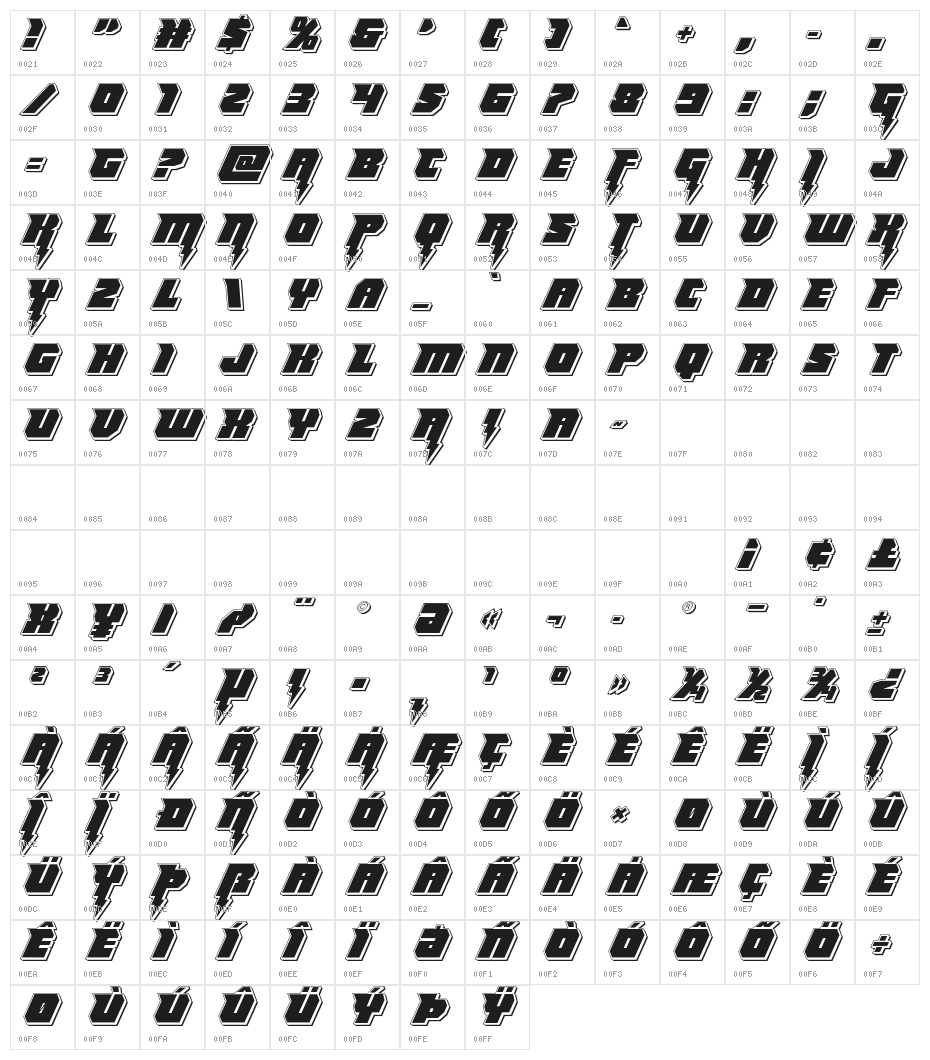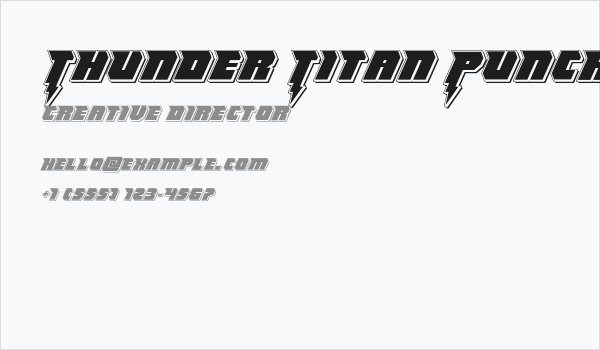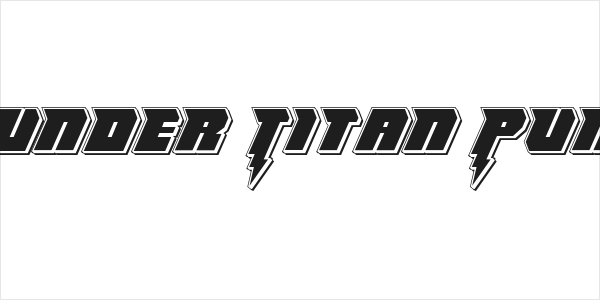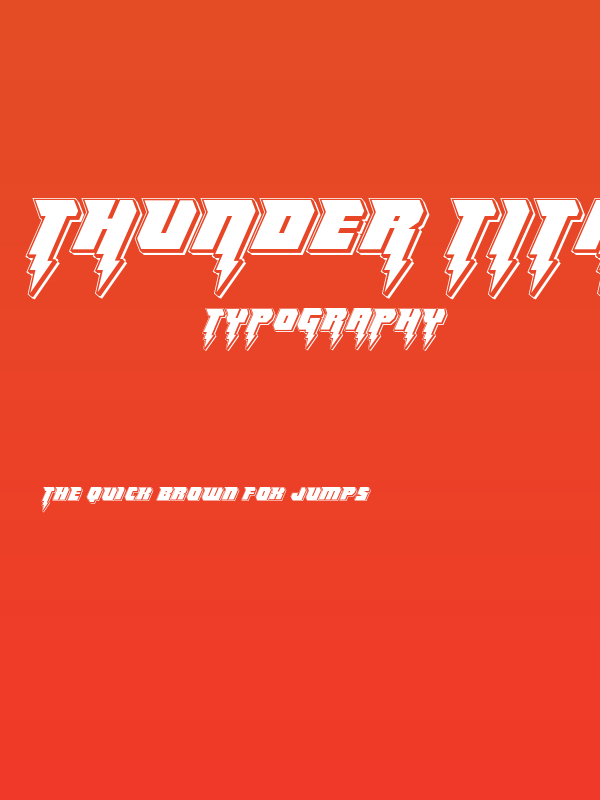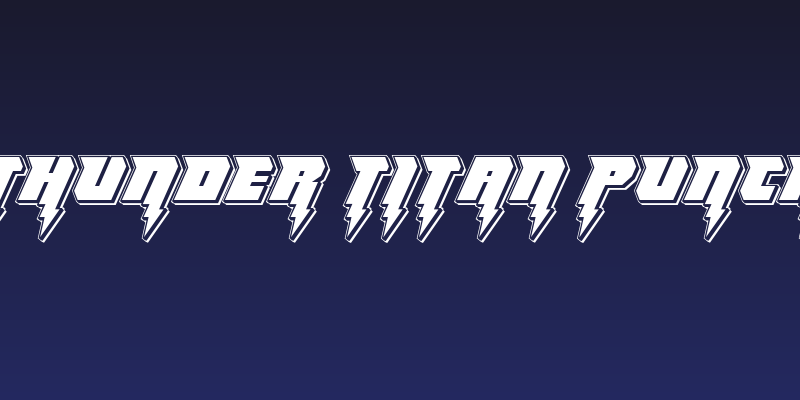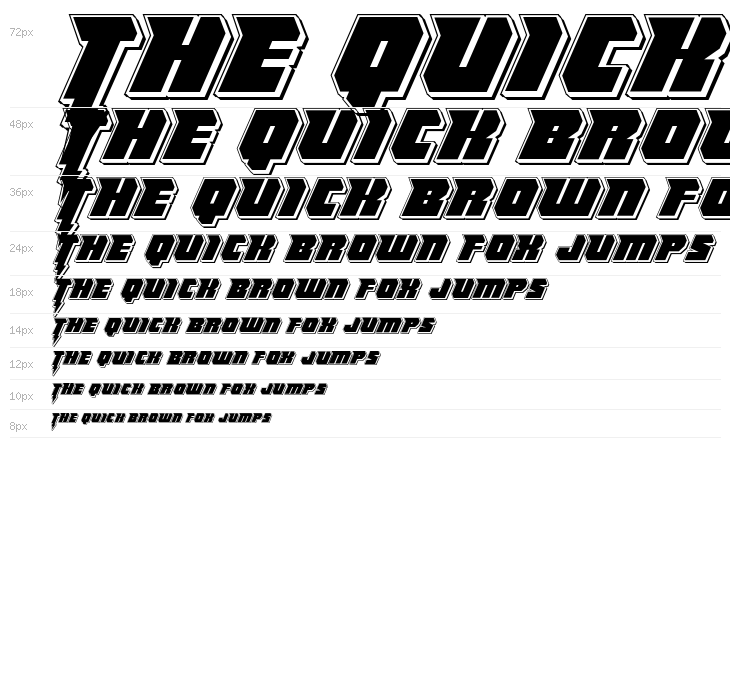
Thunder Titan Punch Font
Thunder Titan Punch Description
This font features a bold and dynamic design with a strong, angular structure. The letters are characterized by sharp edges and a three-dimensional effect, giving them a powerful and energetic appearance. The uppercase and lowercase letters maintain a consistent style, with the uppercase letters having a more pronounced impact. The numbers and special characters follow the same bold and striking design, making them stand out. The font's unique style is reminiscent of lightning bolts, adding a sense of movement and excitement.
THUNDER-TITAN-PUNCH UPPERCASE
THUNDER-TITAN-PUNCH LOWERCASE
THUNDER-TITAN-PUNCH OTHER CHARS
| Proposed Projects | Ideal for sports team logos, action movie posters, video game titles, and any project needing a bold, energetic typeface. |